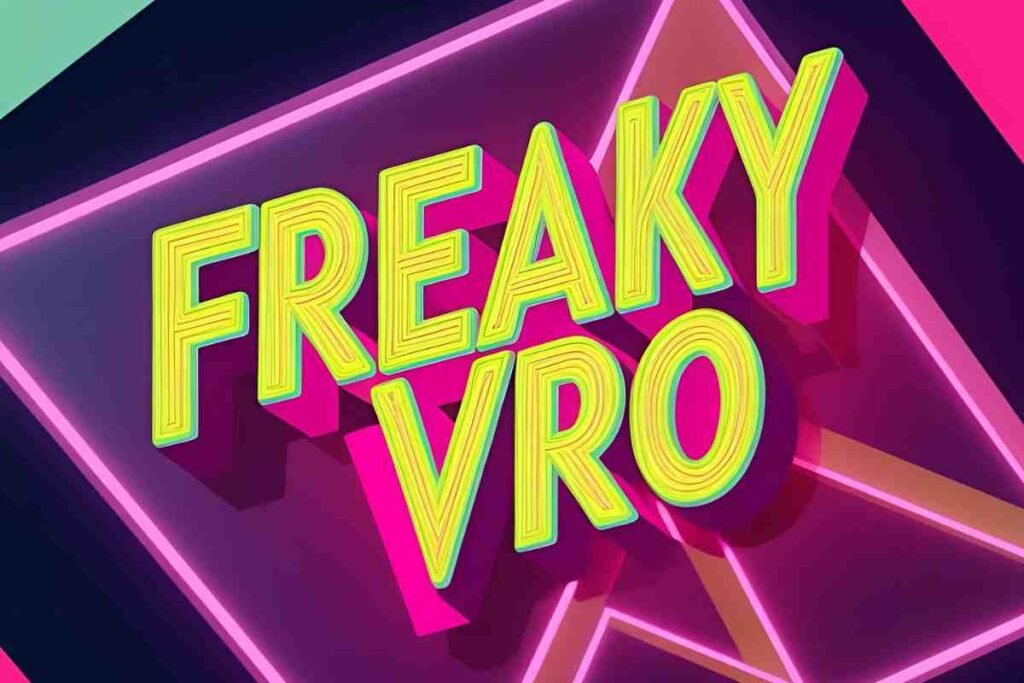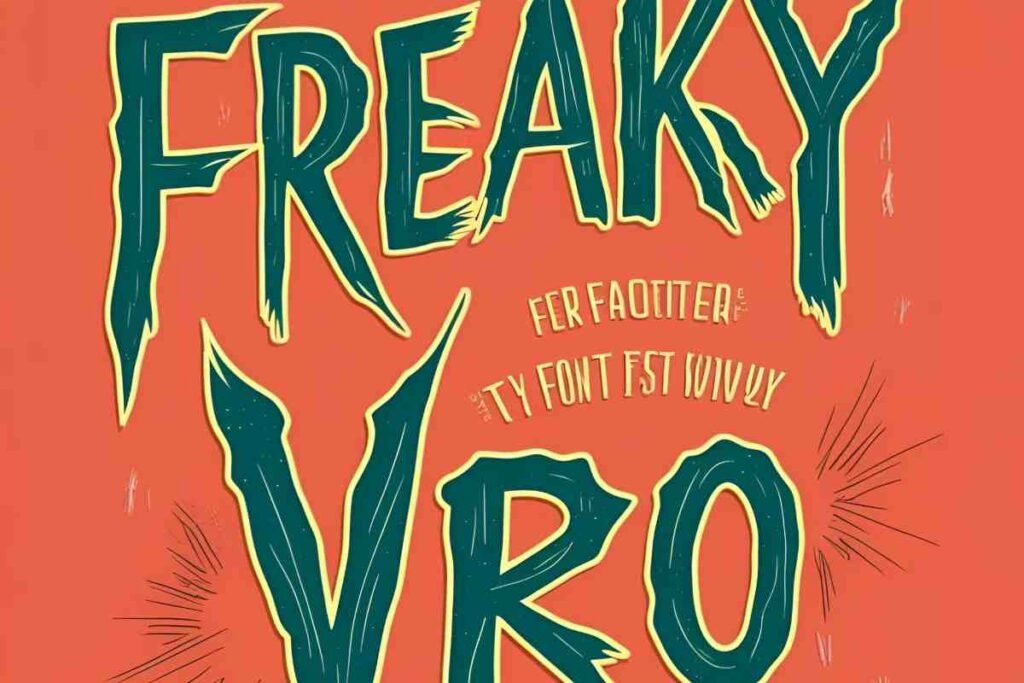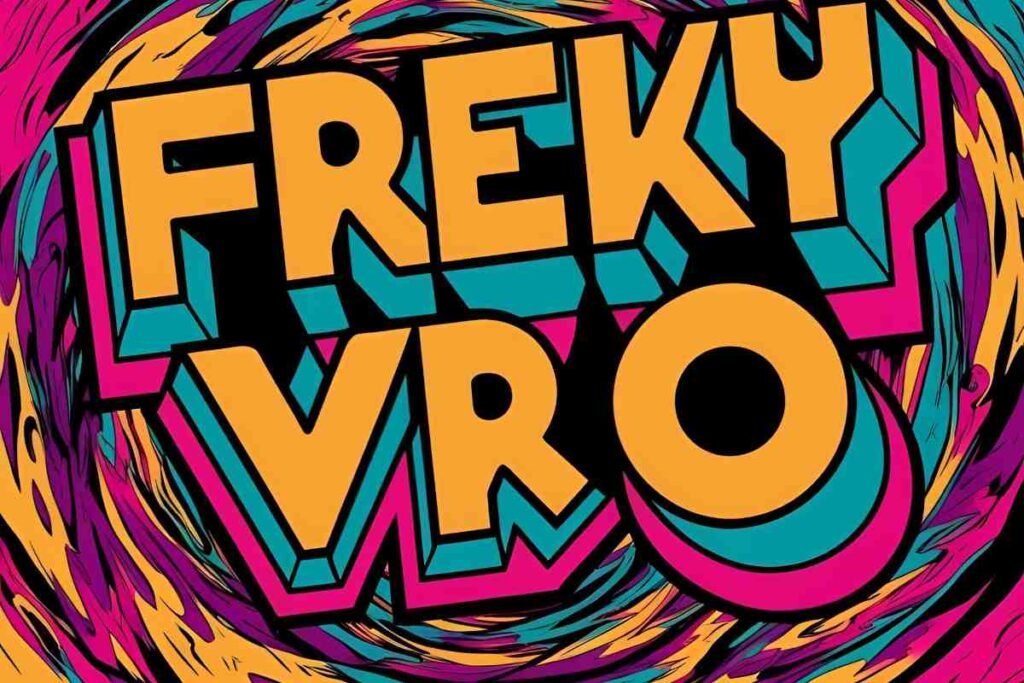
Freaky Vro Font is a dynamic and attention-grabbing typeface designed to inject personality and creativity into any project. Whether you’re a graphic designer, content creator, or brand looking to make a bold statement, this font offers a perfect blend of uniqueness and versatility.
From sleek modern styles to edgy, unconventional designs, Freaky Vro adapts effortlessly to various creative needs. The different styles it offers, and the best ways to use it for maximum visual impact.
What is Freaky Vro Font?
Freaky Vro Font is a stylized display font known for its glitchy, decorative, and unusual appearance. With its bold, distorted, and creative aesthetic, this font has become a favorite among graphic designers, social media creators, and gamers.
Whether you are looking to add a unique twist to your typography or enhance your branding, Freaky Font provides the perfect blend of style and creativity. Its distinctive appearance makes it ideal for eye-catching designs, ensuring that your text stands out in any digital space.
Why Choose Freaky Vro Font?
Freaky Vro Font is a must-have for anyone looking to add a bold and eccentric touch to their projects. It is widely used in gaming because of its visually striking appeal, making game titles and overlays more engaging.
Additionally, it is a popular choice for social media enthusiasts who want to create eye-catching captions, TikTok video text, and meme content. Its versatility extends to branding, where it enhances logos, web design and digital artwork.
Best Uses for Freaky Vro Font
Discover the best ways to use Freaky Vro Font for branding, social media, posters, and creative projects to make your designs stand out.
Gaming Design
Freaky Vro Font has gained popularity in the gaming community due to its edgy, glitch-inspired appearance. It is commonly used for creating stream overlays, gaming thumbnails, and logo designs that demand attention.
Whether you are a streamer looking to enhance your graphics or a gamer who wants a personalized gaming tag, this font adds the perfect amount of flair and intensity to your visuals.
Social Media Graphics
Social media is all about grabbing attention, and the Vro font freaky style helps creators do just that. Whether you’re designing Instagram posts, crafting compelling TikTok video overlays, or making memes that stand out, this font adds a fun and engaging touch to your content.
By using this font, you can ensure that your posts and captions capture the interest of your audience, making your content more shareable and visually appealing.
Are there any Freaky Vro font alternatives?
Yes, similar fonts include glitch fonts, decorative fonts, Gothic fonts, and cursive fonts that share comparable design elements.